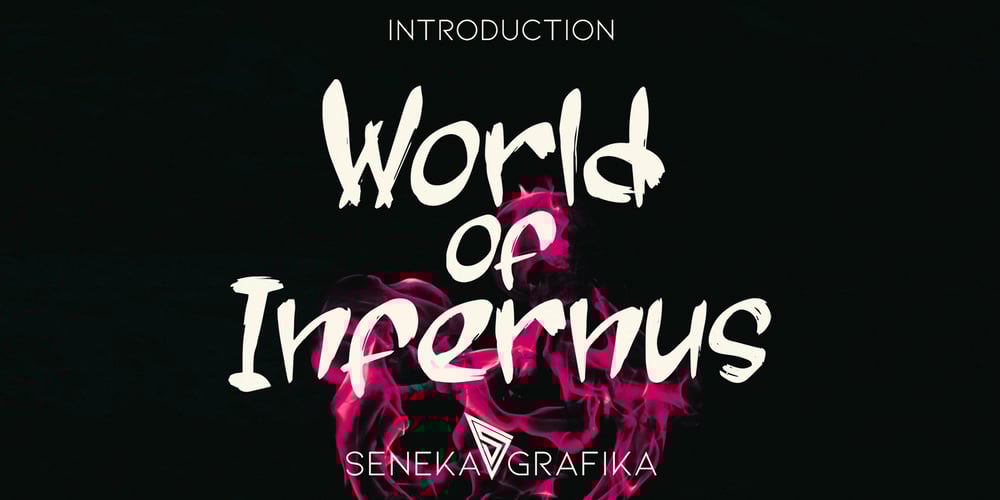
World of Infernus
World of Infernus font
World of Infernus Font Family was designed by Muhammad Helmi and published by Senekaligrafika. World of Infernus contains 1 styles and family package options. “World of Infernus” is a classy and unique lettered font that speak to instant all night sensationst.“World of Infernus” will help you to create special and touching typographical design for your night and darkness projects, for night party, branding, labeling, clothing, movie title, album cover, logos and many more.It is really universal and modern font. The owner of endless possibilities!